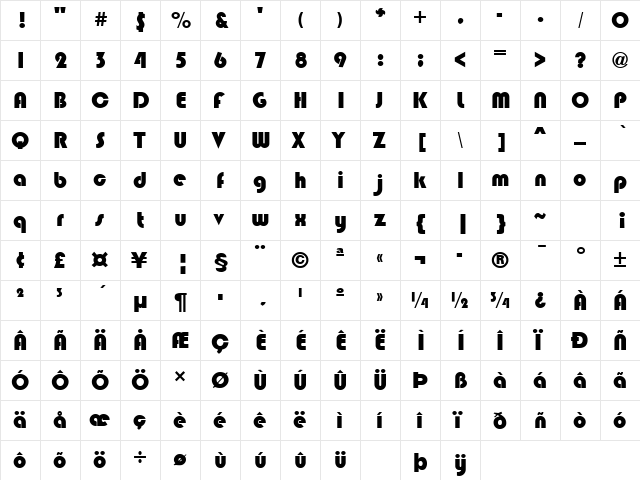
BRINLEA Regular
Design Context for BRINLEA Typeface
BRINLEA takes a measured approach to typography — its balanced proportions and neutral character make it a reliable workhorse for both digital and print work.